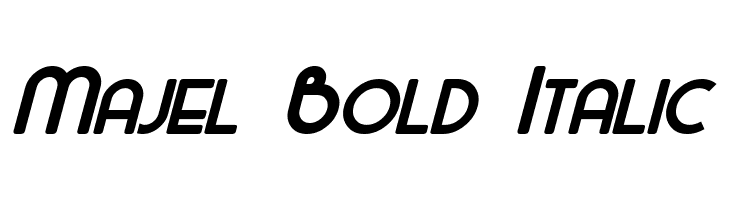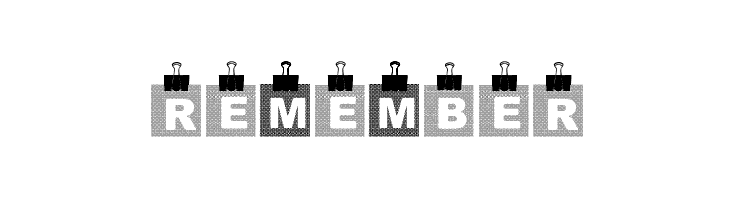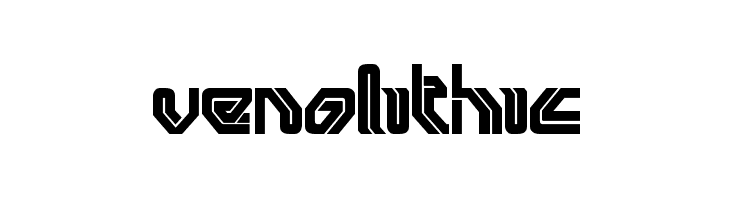
A bold, geometric font with a modern, industrial style.
A bold, expressive script font with flowing, connected letterforms.
A refined serif font with semi-condensed, semi-bold italic style.
A bold, distressed font with a grunge texture for an edgy appearance.
A decorative font featuring intricately designed zodiac symbols.
A bold, futuristic font with geometric shapes and sharp angles.
Alphabet formed using binder clips in a creative, artistic style.
A modern, geometric outline font with consistent line weight and balanced design.